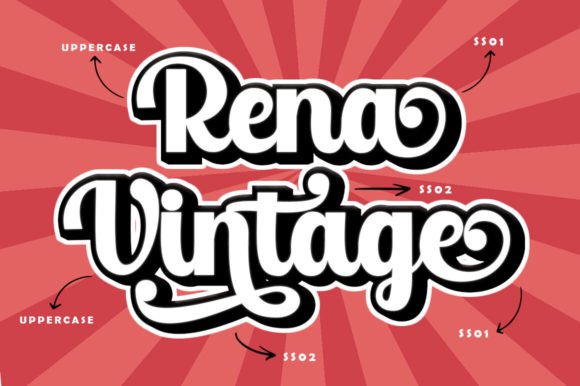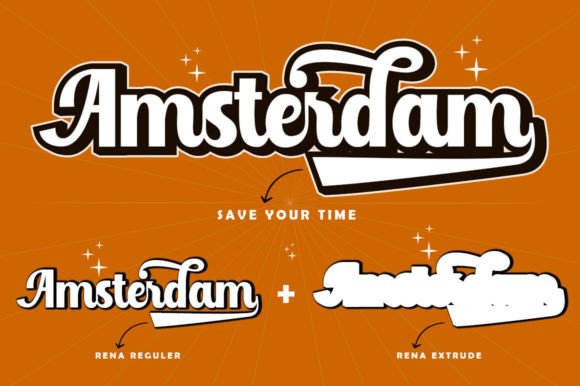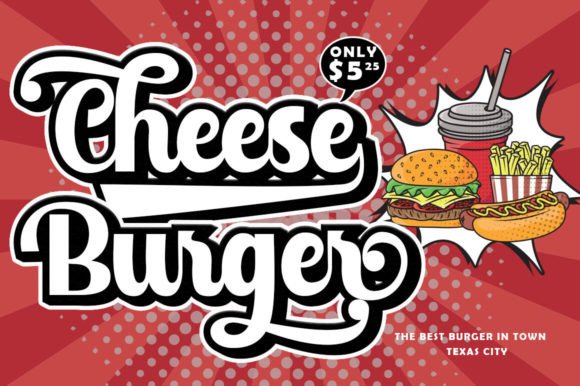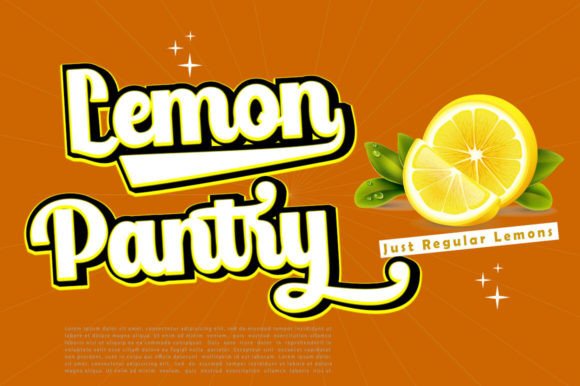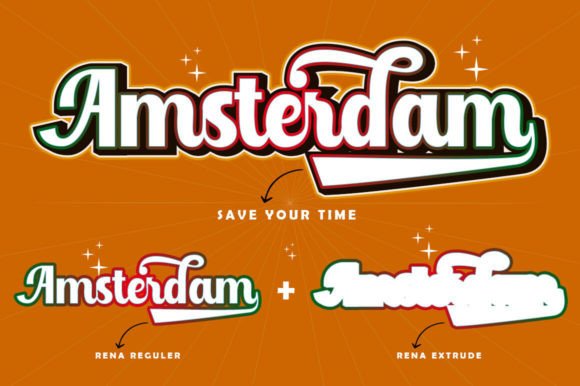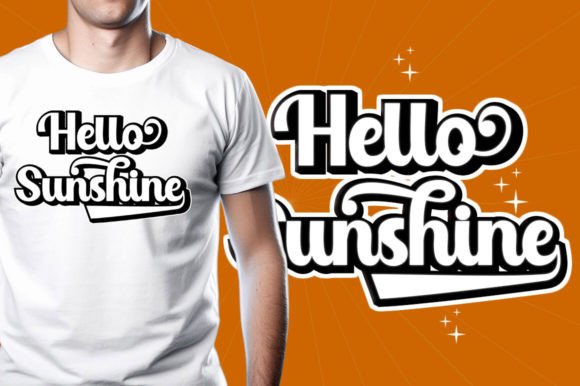
Introduction to Rena Font
Rena Script was Inspired by the Retro style and mixed with the Hand Lettering style.
Rena Script has many alternatives and swash features such as alternative styles, style sets, ligatures, and swashes so you can mix and match as you like Rena Script comes with open-type features like alternative styles, a suite of advanced styles & features for logos, posters, badges, book covers, t-shirt designs, handwritten quotes, product packaging, headers, posters, merchandise, social media & greeting cards.
Rena Font offers exceptional quality and versatility, making it a valuable addition to your design toolkit. Whether you’re creating for personal projects or commercial use, Rena Font delivers professional results.